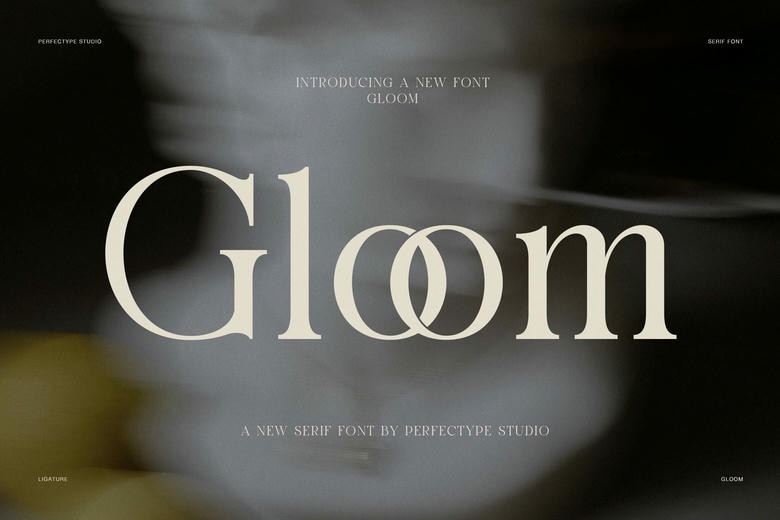
Gloom Serif Font
Gloom is a stylish serif font with ligatures, made for creators who value refined typography and a modern editorial look. Its design draws inspiration from luxury branding, classic fashion, and high-end publishing.
The letters have high contrast, delicate serifs, and smooth curves, giving them an elegant and readable look. The ligatures help the characters flow naturally together.
Gloom Elegant Ligature Serif Font